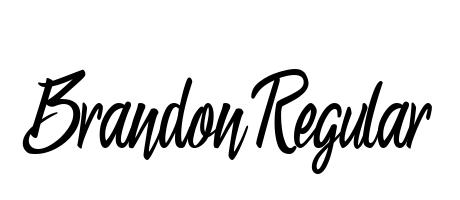
Brandon
By Typotopia Studio
Brandon Regular is a flowing, cursive script font. Its letters are elegantly connected, giving it a graceful, slightly informal feel. The strokes are smooth and slightly varied in thickness, adding a touch of hand-drawn charm. It's a versatile font ideal for titles, logos, and anything requiring a touch of sophistication and personality.